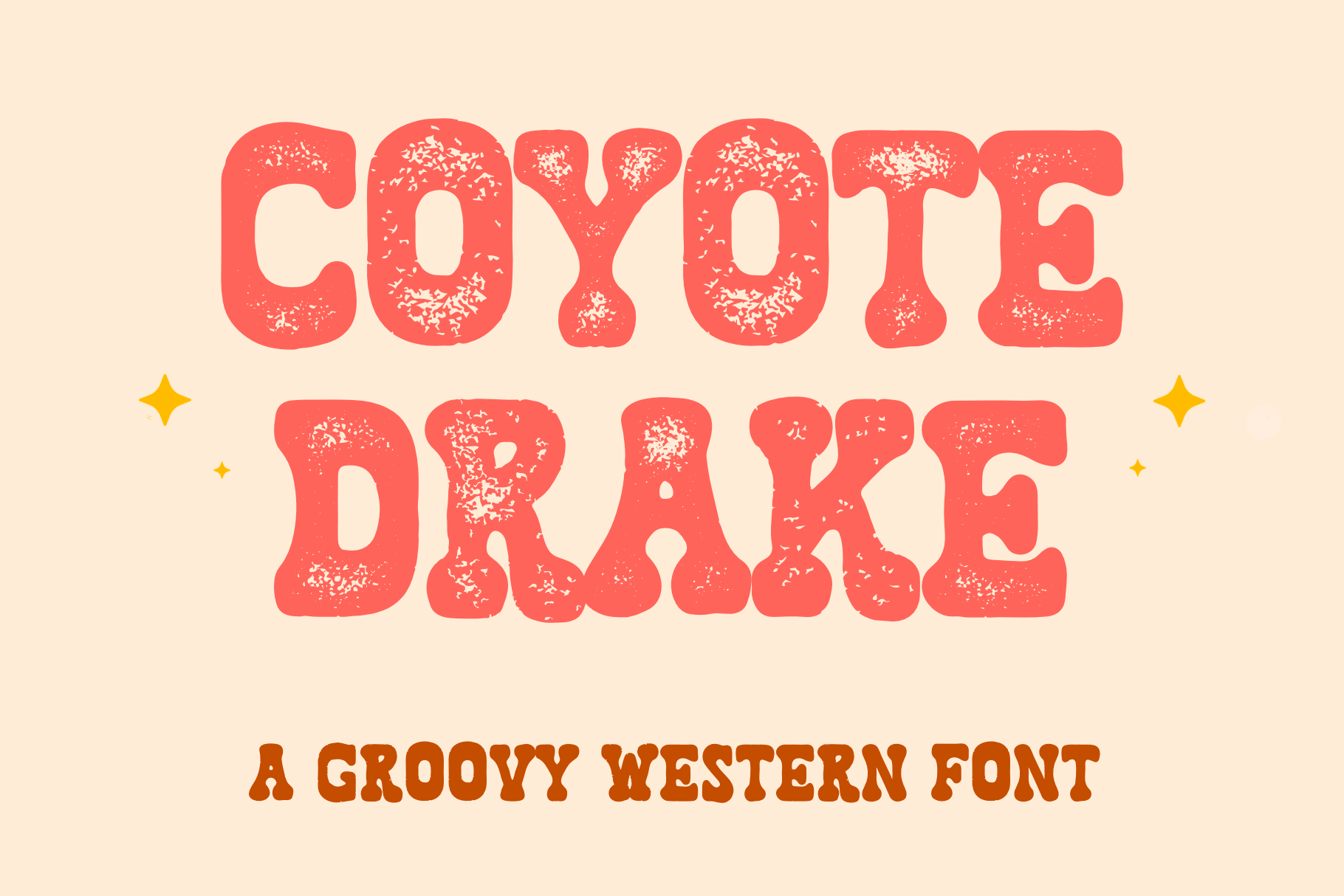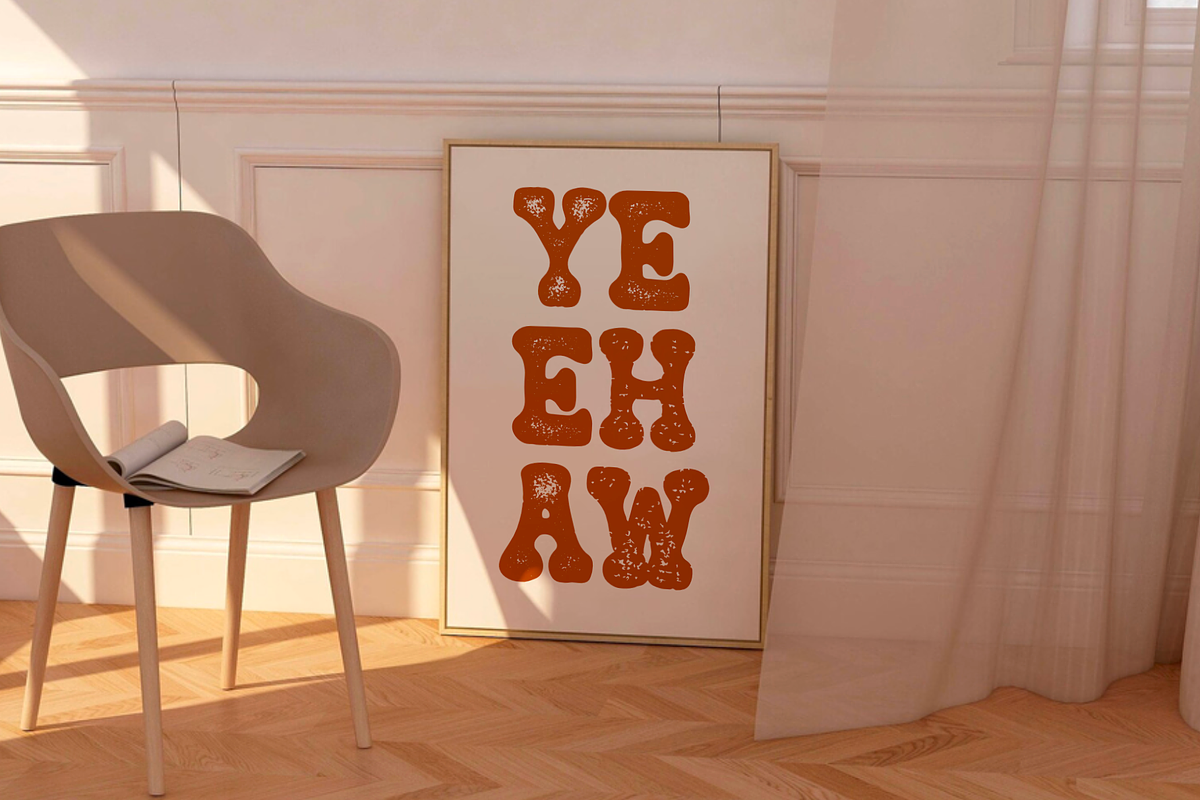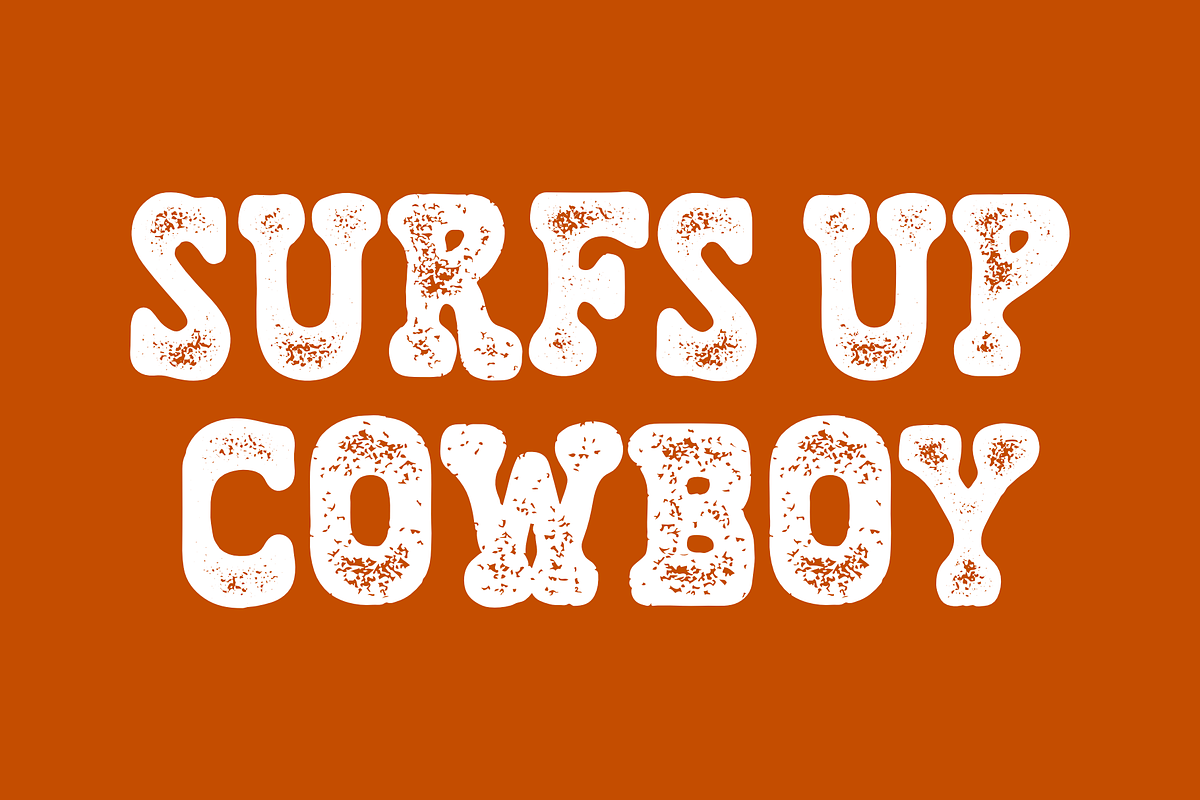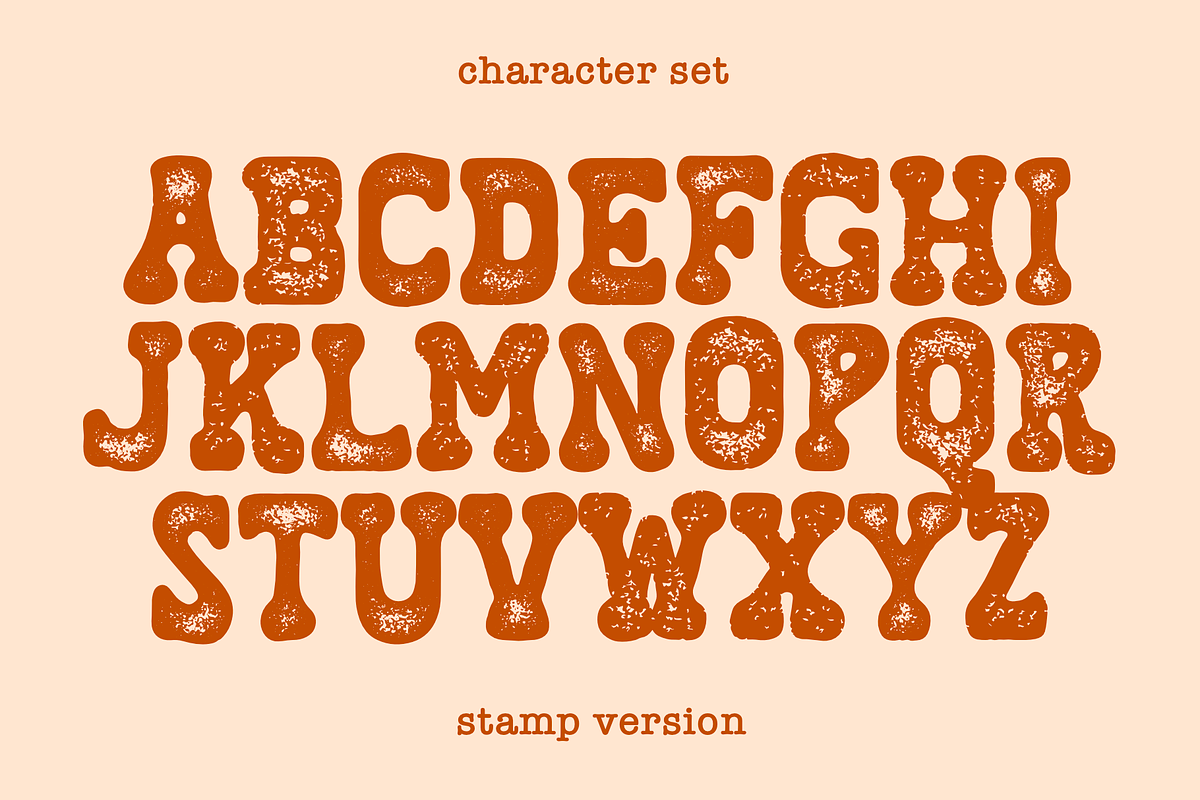
Coyote Drake Font - Groovy Western
Coyote Drake is a captivating, groovy font that effortlessly combines the essence of Western style with a touch of retro coolness. This typeface available in SVG format, compatible with advanced tools such as Cricut and Glowforge, and for use in Procreate. The letterforms of Coyote Drake are inspired by the bold and free-spirited nature of the Wild West, featuring distinctive curves and dynamic strokes that evoke a sense of adventure.